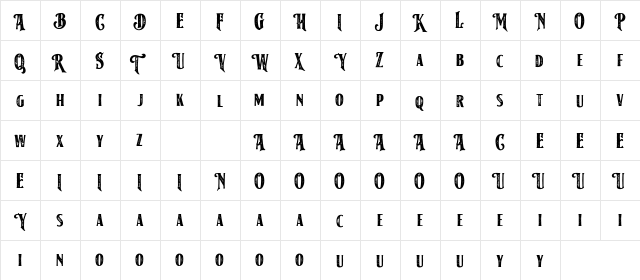
American Label Rough Regular
Design Context for American Label Rough Typeface
American Label Rough embraces imperfection — its rough, textured character adds raw authenticity to designs that want to feel lived-in and unconventional.
Suited to punk-influenced zines, underground music branding, streetwear, and raw, anti-corporate design.
Pro Tip: Pair American Label Rough with intentionally raw or lo-fi design elements. Fighting against it with overly polished surroundings will undermine its personality.